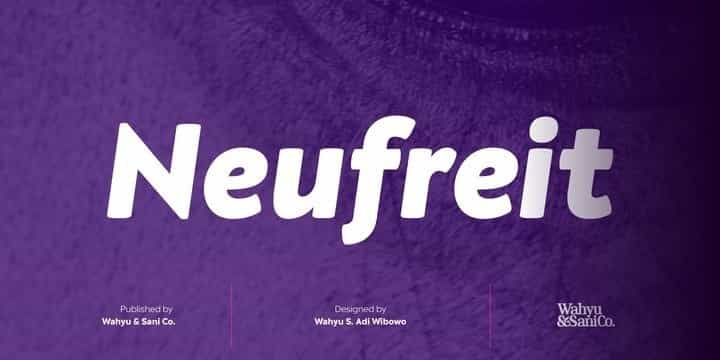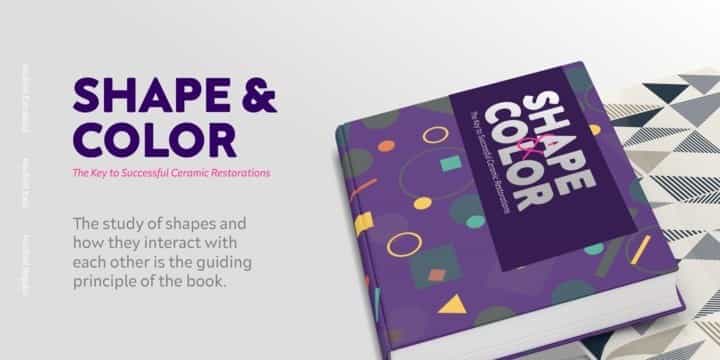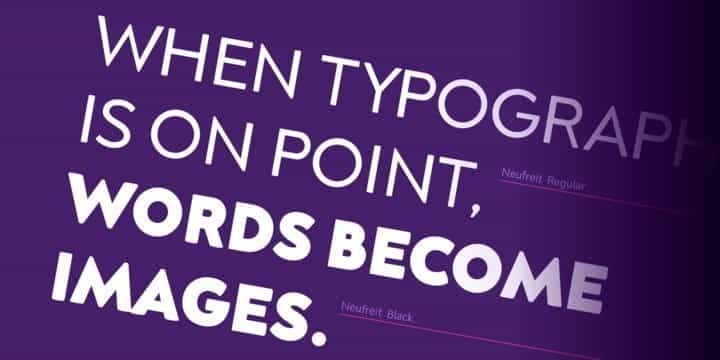
Neufreit is a collection of eighteen sans serif fonts created with a print in mind. The addition of edges and subtle imperfections gives the characters a feel reminiscent of old school printing techniques. For those seeking a touch of texture grunge versions have also been included.